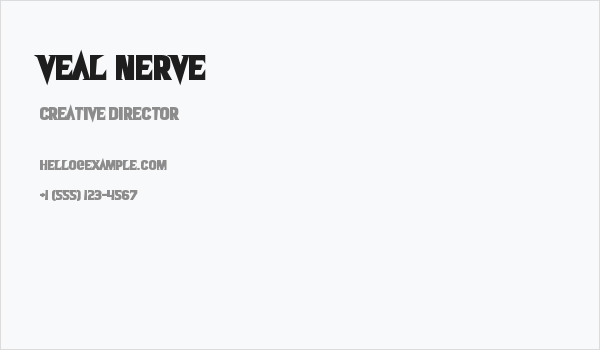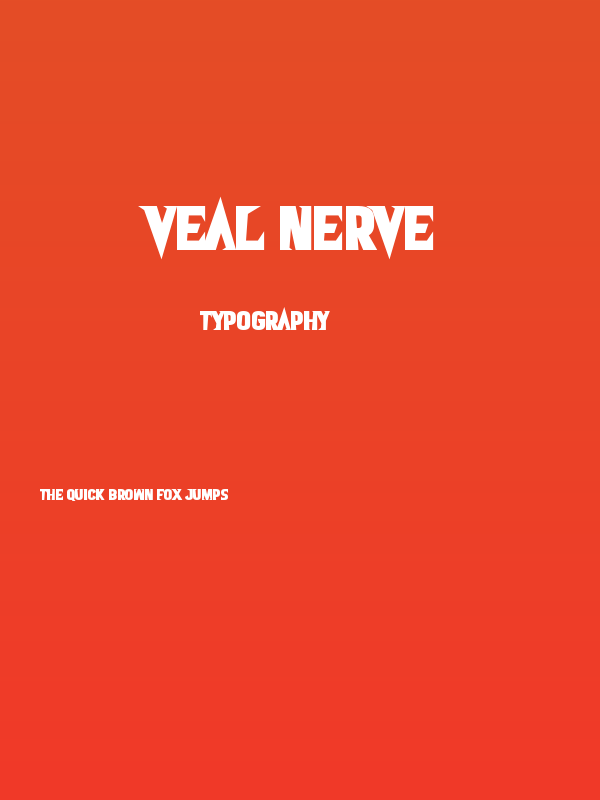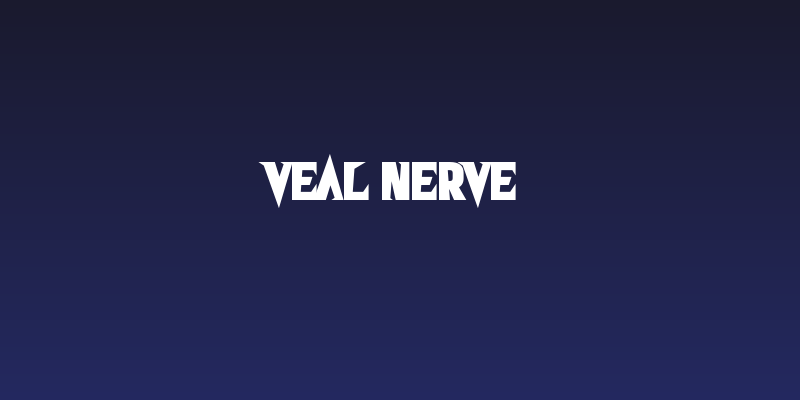
Veal Nerve Font
Veal Nerve Description
This font features a bold and striking design with sharp, angular edges that give it a dynamic and aggressive appearance. The uppercase letters are particularly prominent, with a strong presence that commands attention. The lowercase letters maintain the same boldness, ensuring consistency throughout the typeface. The numbers are equally robust, with a geometric style that complements the overall aesthetic. Special characters are designed to match the boldness of the letters and numbers, making them suitable for impactful statements. The font's unique style is ideal for projects that require a strong visual impact.
VEAL-NERVE UPPERCASE
VEAL-NERVE LOWERCASE
VEAL-NERVE OTHER CHARS